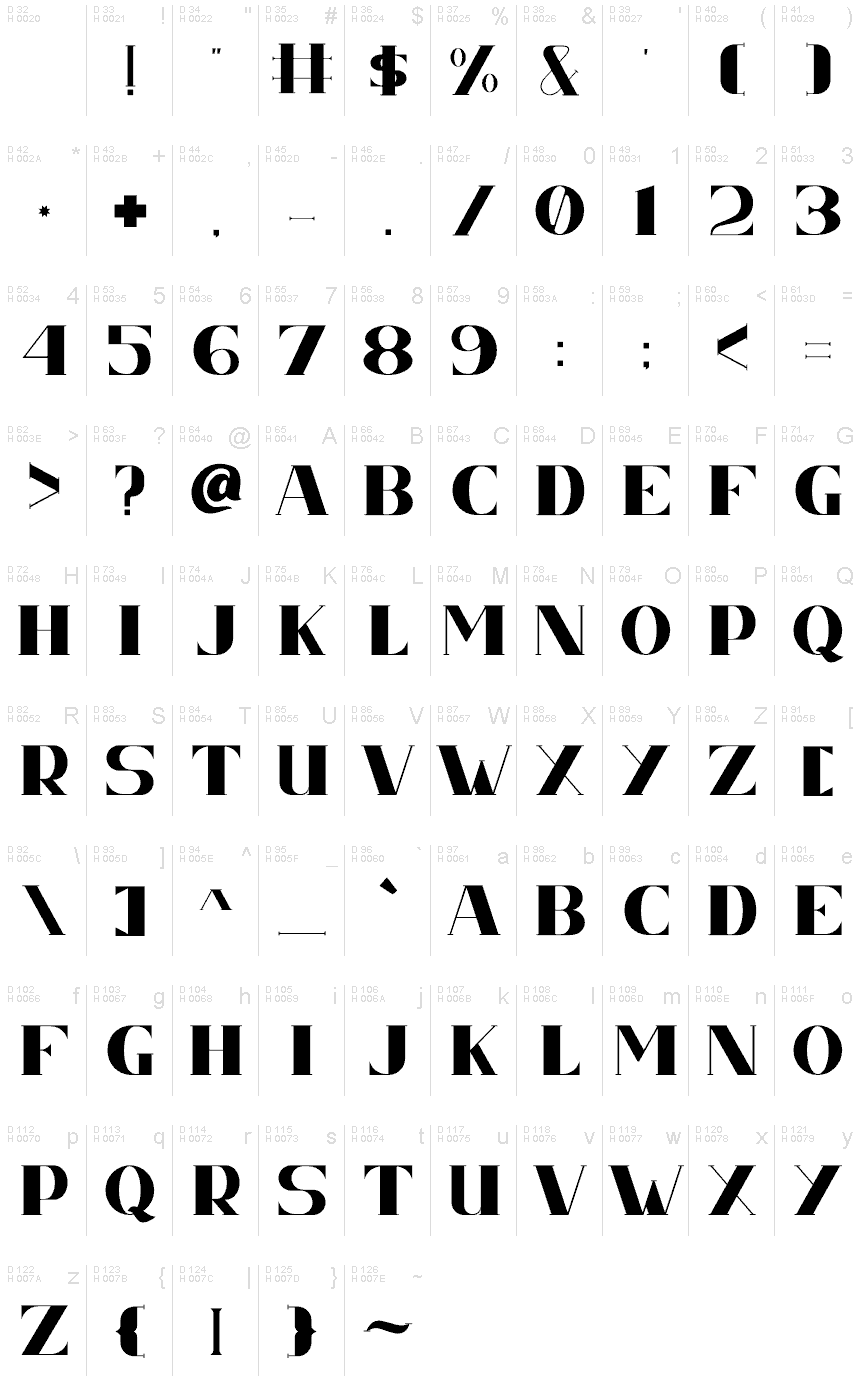
CS Nancy
CS Nancy font from Craft Supply Co. combines classic elegance with a bold, authoritative presence. This serif font is structured and formal, providing a timeless and refined appearance suitable for many design needs. The font's commanding nature, strength, and durability make it exceptionally prominent in any application.
Use CS Nancy for headlines, magazines, books covers, posters, logos & branding projects among other possibilities. It’s presence will show on packaging designs or beauty products advertisements in addition to website headers – wherever you decide to use it. This free serif font is also ideal for wedding invitations along with certificates & awards!